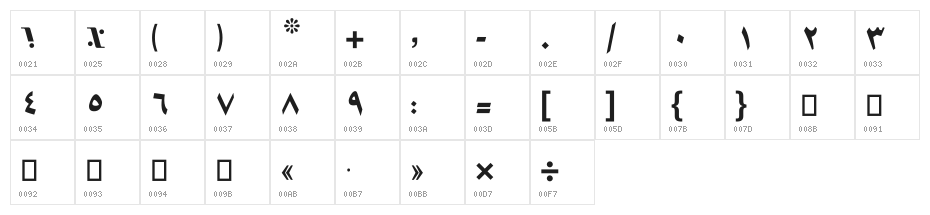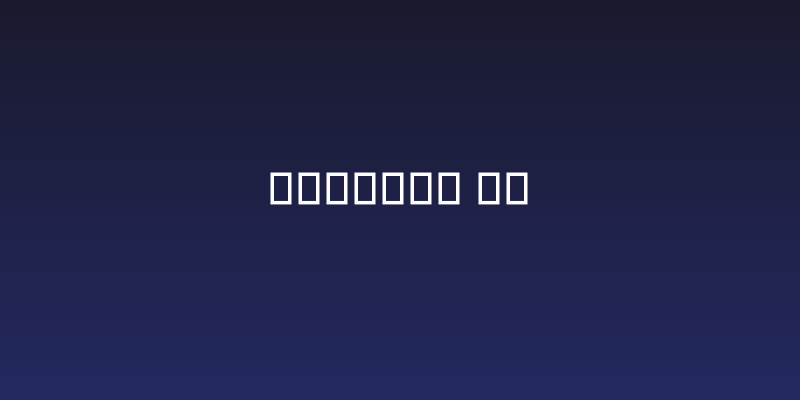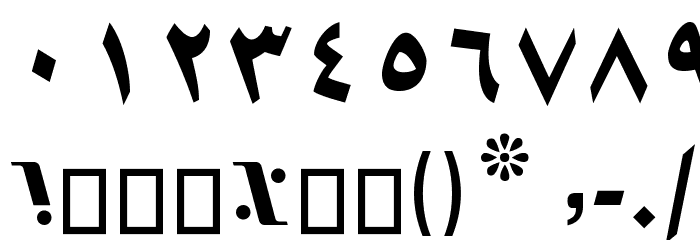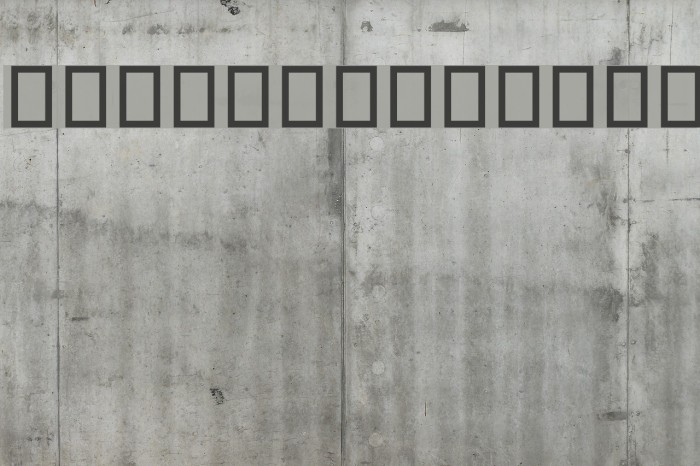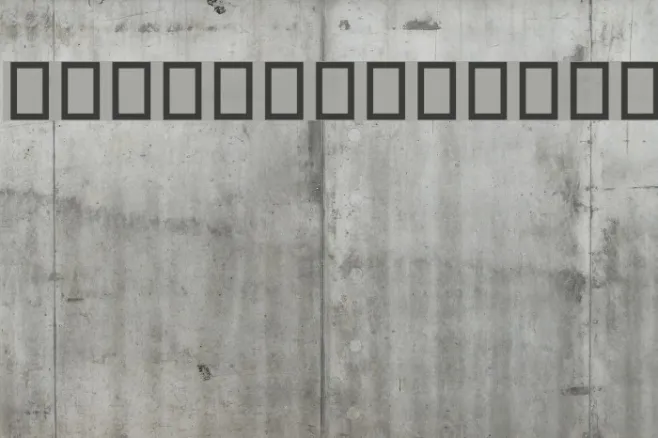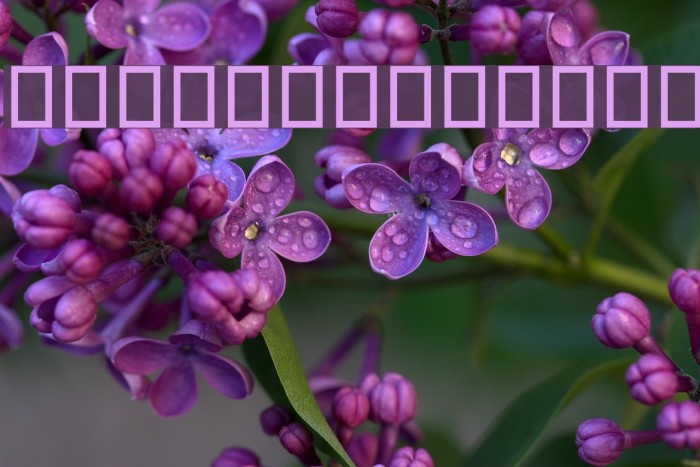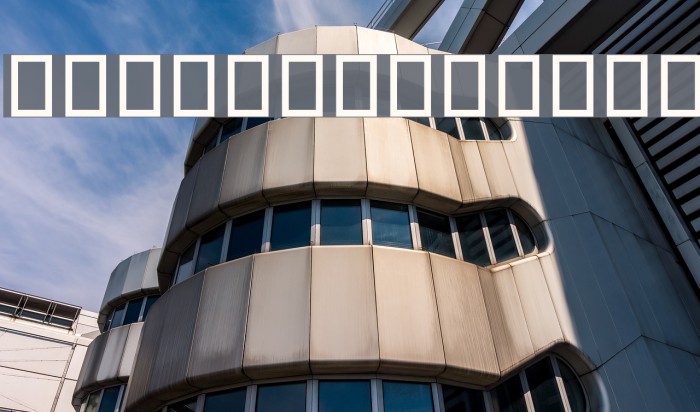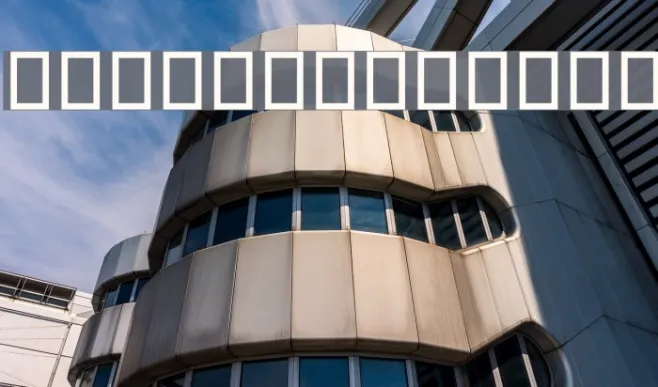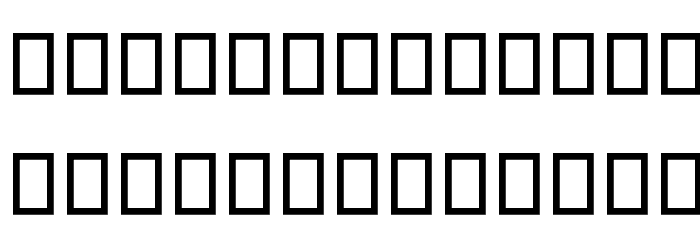
Hirmand II Font
Hirmand II Description
This sample displays a font with Persian/Arabic numerals and punctuation, featuring bold, geometric shapes and a contemporary style. The numerals are highly legible with a playful, slightly angled design, and the punctuation marks are clear and distinct.
| Use Case | Headlines, Posters, Signage, Branding |
| Proposed Projects | Posters, branding, editorial design, educational materials, signage. |